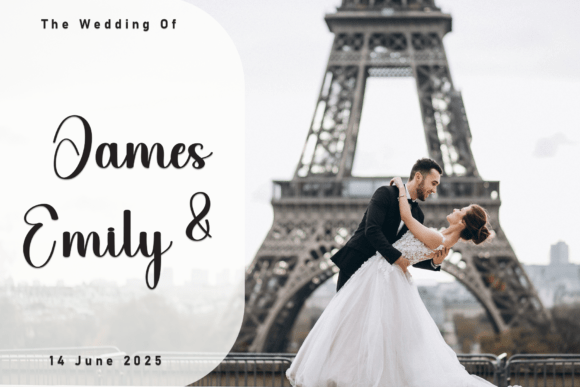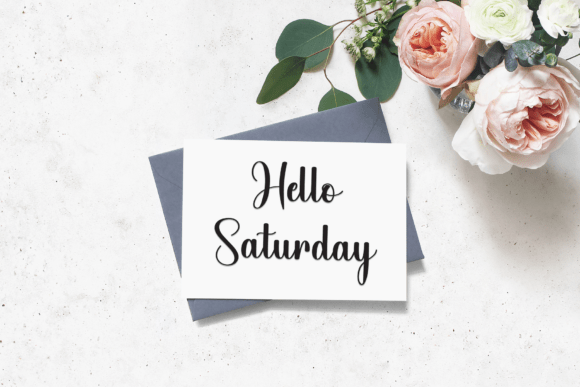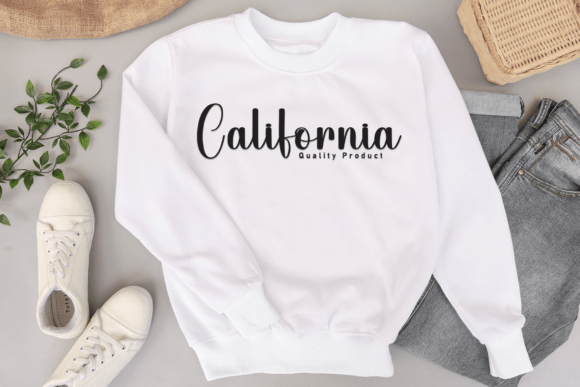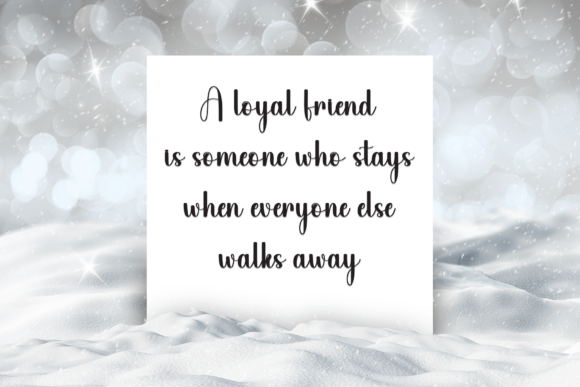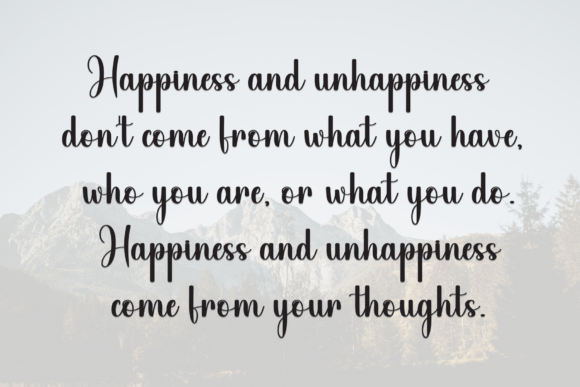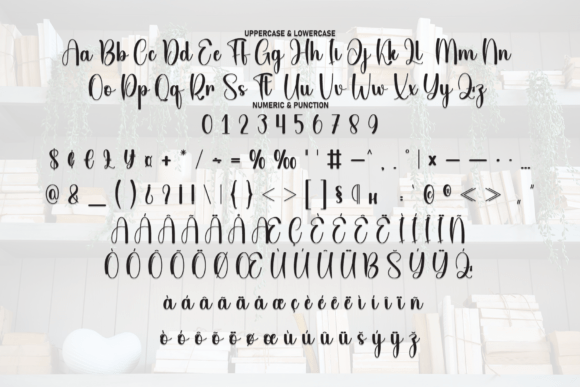
Introducing Book Farmhouse Font: Elevate Your Designs with Artistic Flair and Contemporary Elegance
In the world of typography, few fonts manage to strike a balance between artistic expression and modern sophistication. Book Farmhouse Font is one such exceptional typeface that brings together the fluidity of brush strokes, the dynamism of curves, and the expressiveness of letterforms. This stylish script font is designed to infuse your designs with a creative and sophisticated touch, making it perfect for a wide range of applications.
The Essence of Hand-Painted Calligraphy with a Modern Twist
Book Farmhouse Font draws inspiration from the elegance of hand-painted calligraphy but presents it with a contemporary twist. The fluid brush strokes and dynamic curves give the font a natural flow that is both vibrant and engaging. Each letterform is crafted to convey a sense of artistic flair, making the font an excellent choice for designers and crafters looking to add a personal touch to their work.
One of the standout features of Book Farmhouse Font is its versatility. Whether you’re designing a logo, creating an invitation, working on packaging, or crafting social media graphics, this font is up to the task. Its ability to deliver both visual impact and versatility makes it an indispensable tool in your typography arsenal.
Ideal Applications for Book Farmhouse Font
- Logos: Use Book Farmhouse Font to create a memorable brand identity that stands out from the competition. Its unique blend of artistic flair and elegance ensures your logo is both distinctive and sophisticated.
- Invitations: Add a touch of class and creativity to your invitations, whether it’s for a wedding, a birthday party, or any other special occasion. The font’s expressive letterforms and fluid strokes make it perfect for conveying warmth and personality.
- Packaging: Elevate your product packaging with a font that exudes contemporary elegance. Book Farmhouse Font can help your product stand out on crowded shelves and make a lasting impression on potential customers.
- Social Media Graphics: Create engaging and visually appealing social media graphics with Book Farmhouse Font. Its versatility allows you to use it across various platforms, ensuring your content looks great everywhere.
Why Choose Book Farmhouse Font?
There are several reasons why Book Farmhouse Font should be your go-to choice for your design projects:
- Unique Artistic Flair: The font’s hand-painted feel and modern twist offer a unique aesthetic that can set your designs apart.
- Elegance and Sophistication: Book Farmhouse Font brings a level of sophistication to your designs, making it suitable for high-end projects and brands.
- High Versatility: Its wide range of applications makes it a valuable asset for any designer or crafter.
- Easy to Use: Despite its complex appearance, Book Farmhouse Font is easy to use and integrate into your projects, making it accessible to designers of all skill levels.
Tips for Using Book Farmhouse Font Effectively
To get the most out of Book Farmhouse Font, consider the following tips:
- Pair with Complementary Fonts: For maximum impact, pair Book Farmhouse Font with simpler fonts that complement its artistic flair without overpowering it.
- Experiment with Colors: Take advantage of the font’s vibrant character by experimenting with different colors that match your brand’s palette or the mood of your design.
- Play with Sizes: Don’t be afraid to vary the size of your text to create visual hierarchy and emphasis in your designs.
Book Farmhouse Font is more than just a typeface; it’s a tool for creativity and expression. Its unique blend of artistic flair and contemporary elegance makes it an excellent choice for designers and crafters looking to elevate their designs. Whether you’re working on a logo, invitation, packaging, or social media graphics, Book Farmhouse Font offers the versatility and sophistication you need to create stunning visuals. Add it to your collection today and discover the difference it can make in your work.